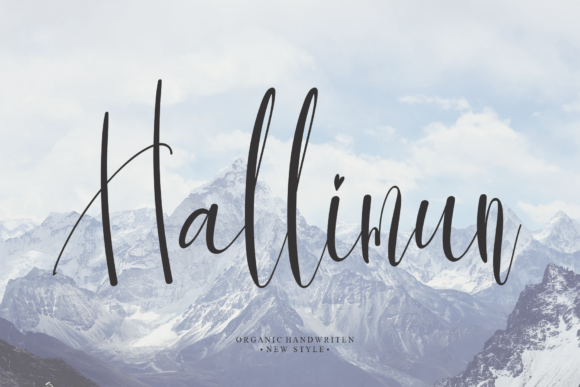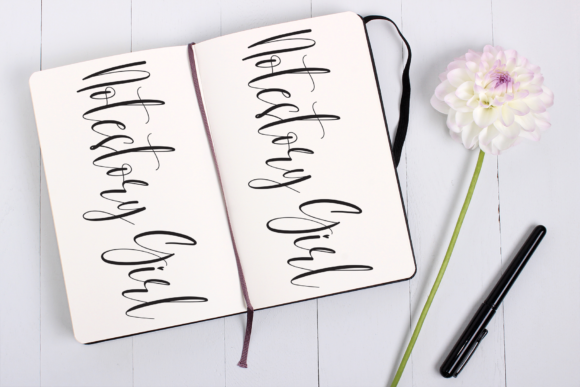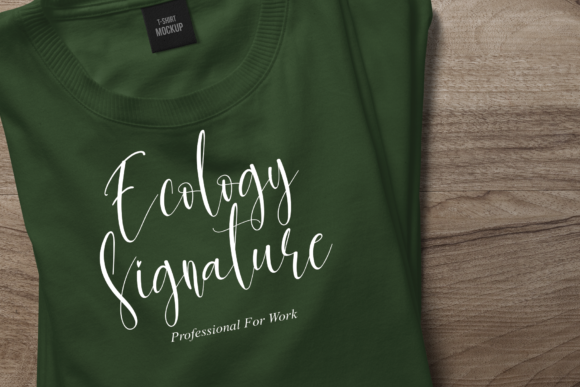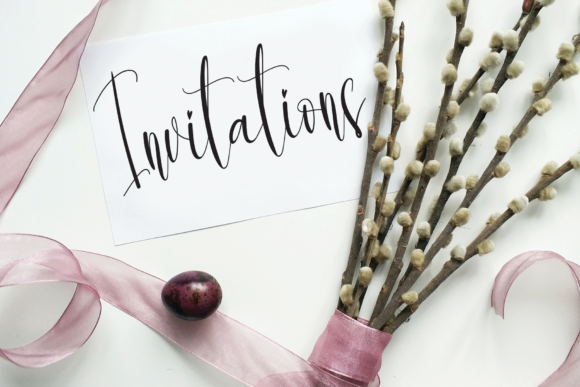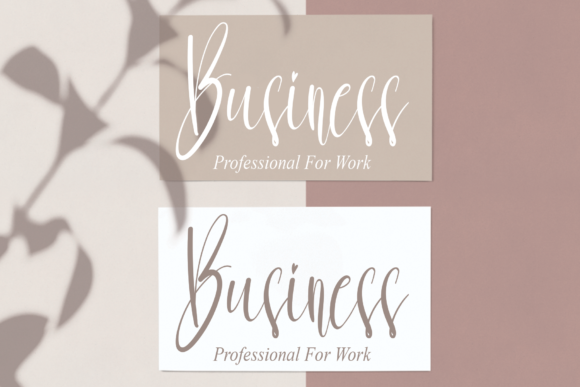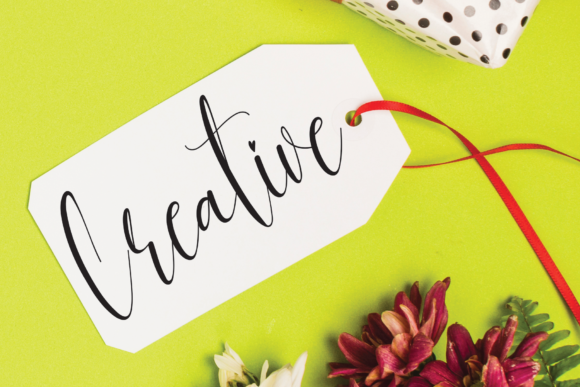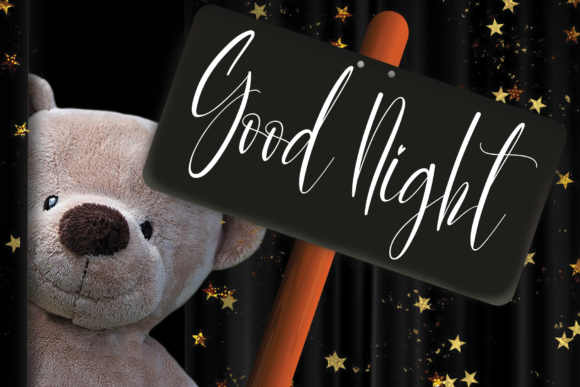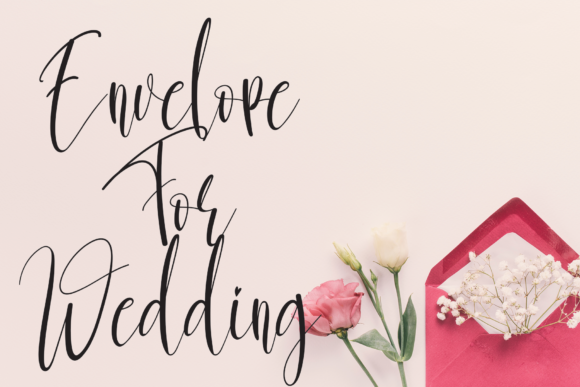
Hallimun Font
Hallimun is a beautiful, well balanced and stylish script font. It is defined by smooth curves and is perfect for fashion branding or editorial designs. Add it confidently to your projects, and you will love the results.